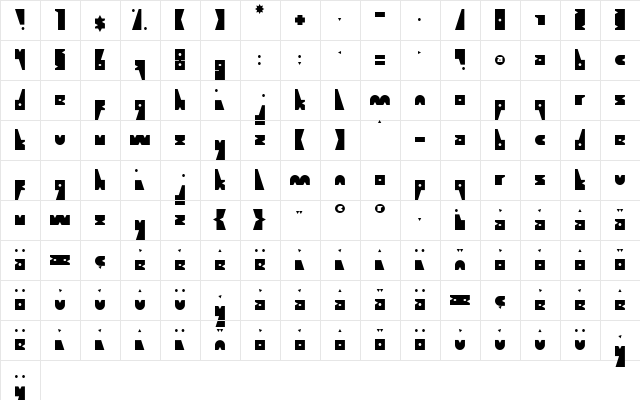
Get Free Regular
| Foundry | Jarrik Muller |
Design Context for Get Free Typeface
Get Free is a composed and adaptable typeface that performs quietly and consistently across a wide range of design contexts.